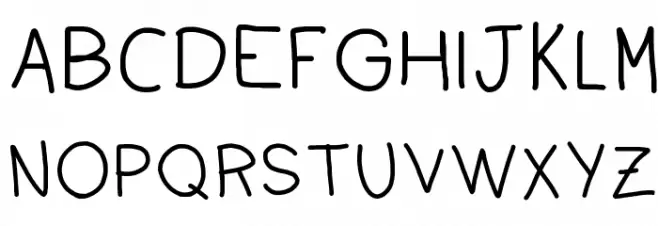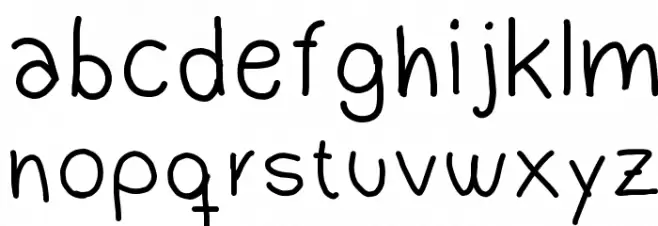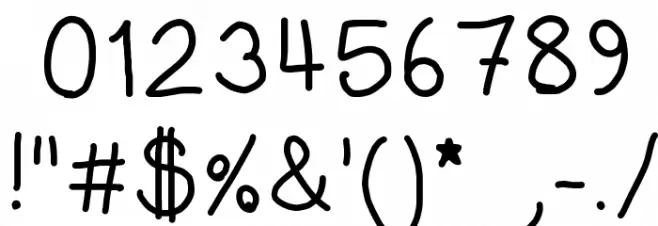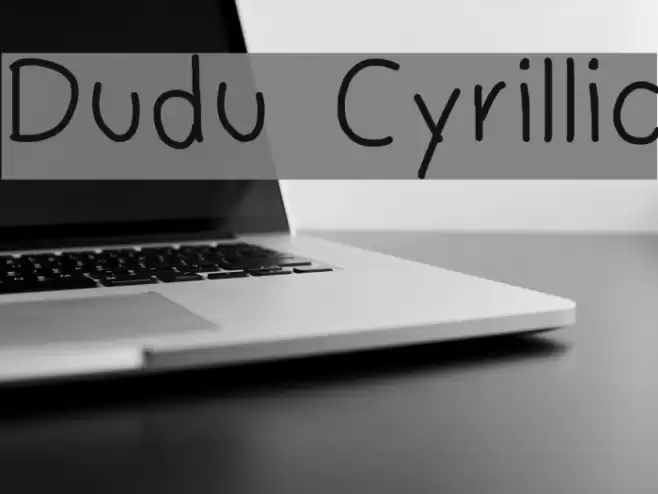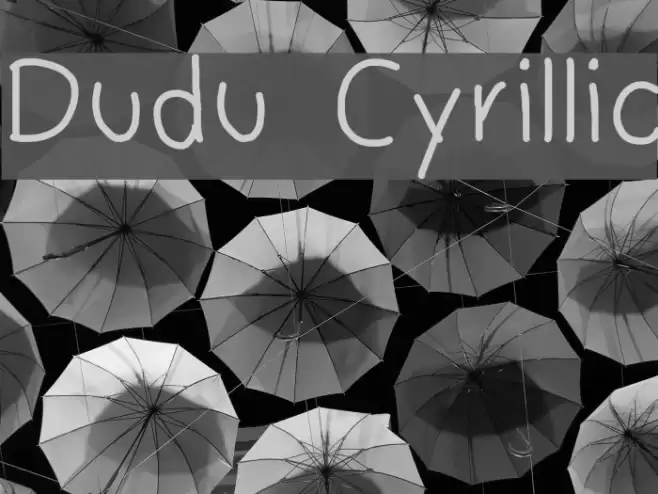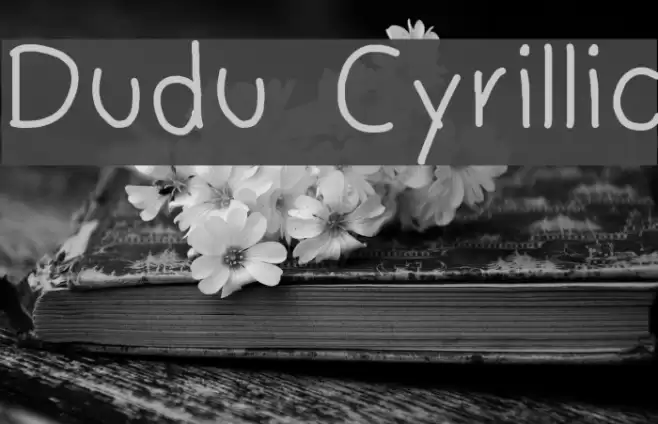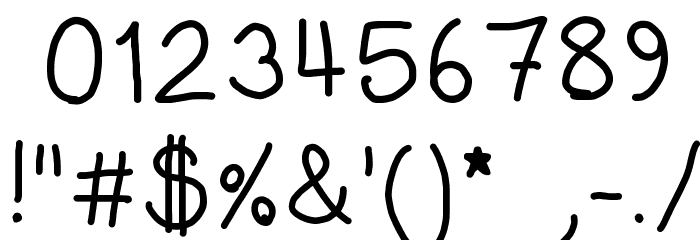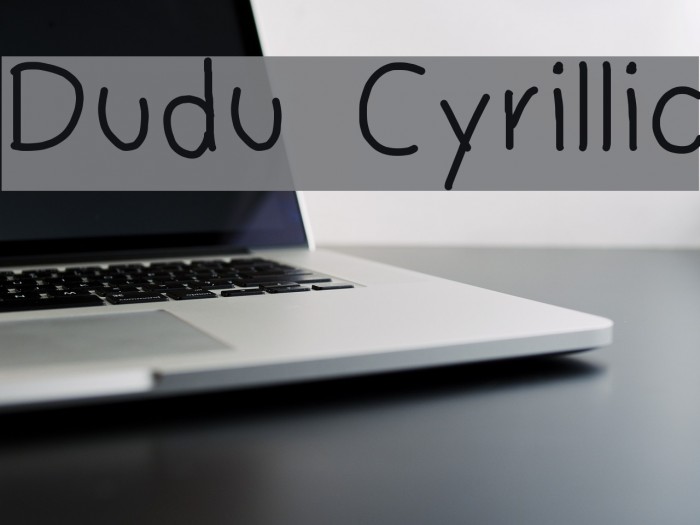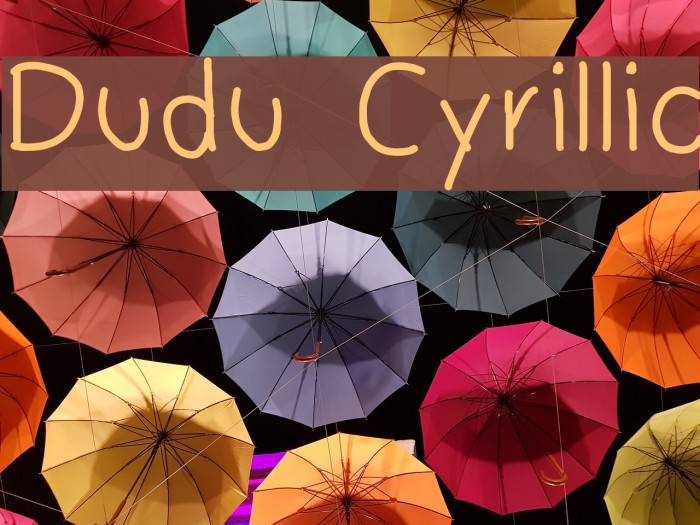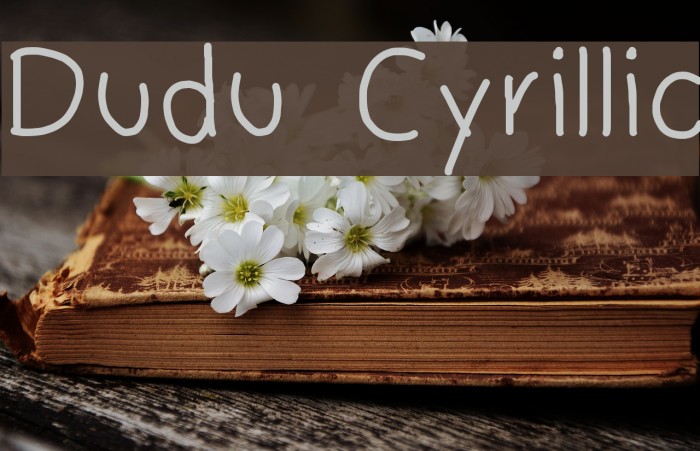
Dudu Cyrillic
This font features a playful and casual handwritten style, characterized by its rounded and slightly irregular letterforms. The uppercase and lowercase letters maintain a consistent flow, with a natural and friendly appearance. The numerals and special characters follow the same informal aesthetic, making the font suitable for creative and informal applications. The strokes are uniform in thickness, contributing to a cohesive look across all characters. This font's approachable style makes it ideal for projects that aim to convey warmth and friendliness.
A playful, handwritten font with rounded, informal letterforms.
- Proposed Projects: Ideal for children's books, greeting cards, casual invitations, and playful branding.
- Overall Style: Casual
- Use Case: Headlines, Informal text, Creative projects